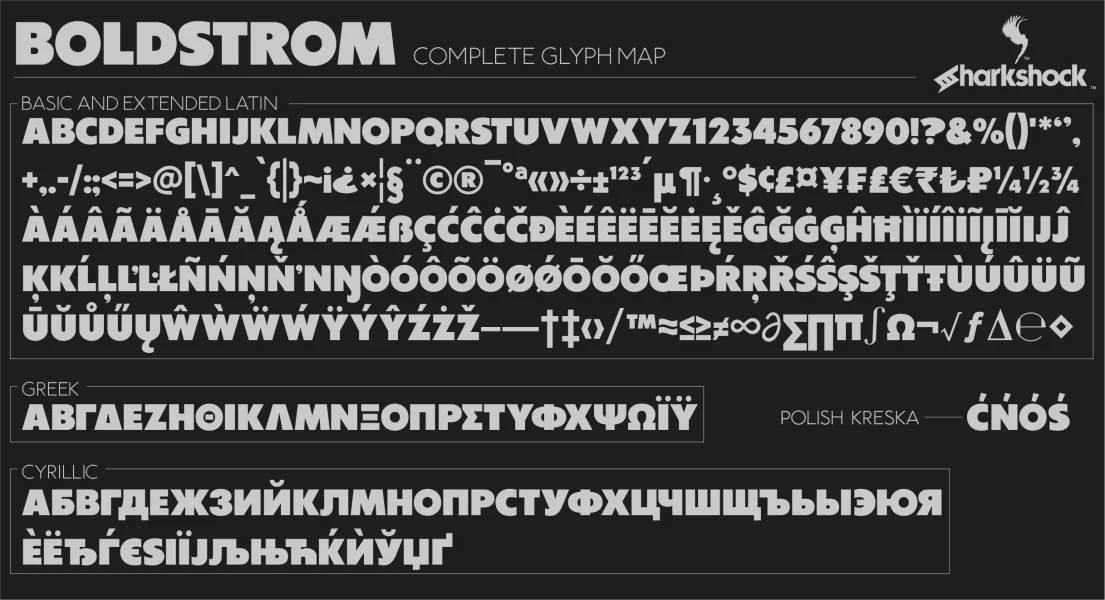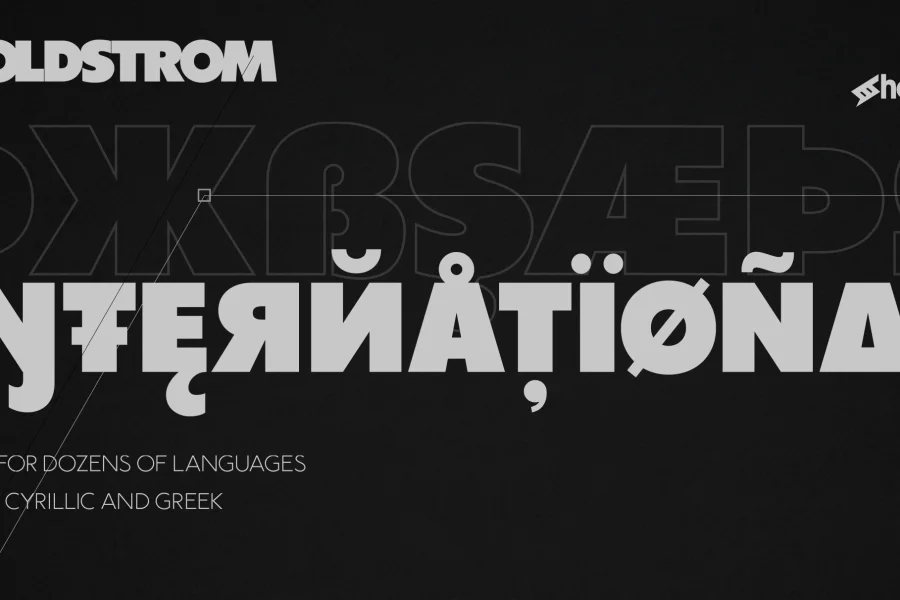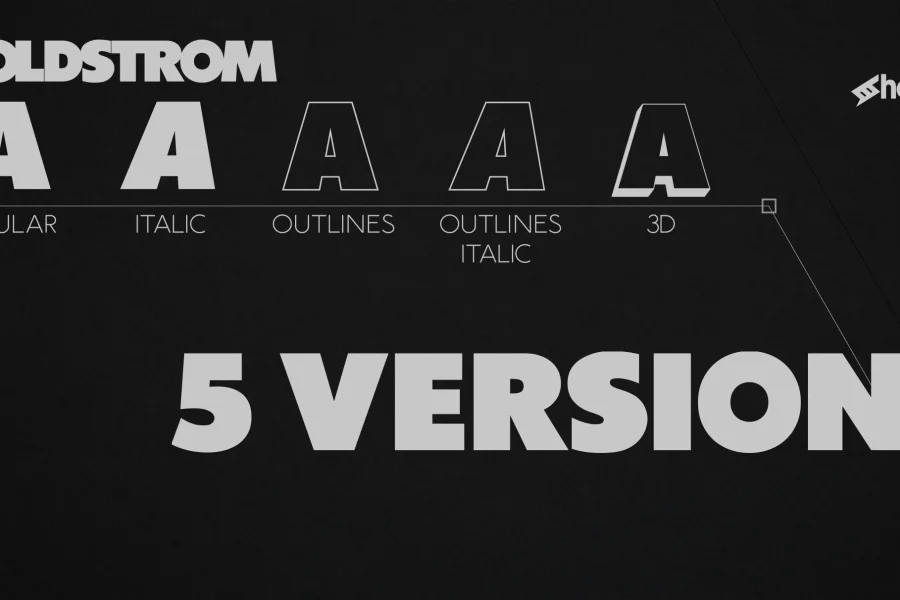
Boldstrom is a heavy-handed, all caps, display font available in 5 versions. Emphasis was put into strong line weight, minimal contrast, and tight curves. This family is defined by very broad stems with comparatively thinner cross strokes. Spacing was condensed to ensure the characters fit snug against one another. This was done in part to minimize negative space while also creating tension. The result is a powerful looking sans serif designed to command attention and make a statement. Boldstrom will be best used in large format print, titling, books, movie posters, or company logos.
The Boldstrom family is equipped with Basic Latin, extended Latin, diacritics, Cyrillic, Greek, support for Polish, symbols, punctuation, and kerning. The demo contains basic Latin and limited punctuation only. Please check the glyph map for all supported characters.